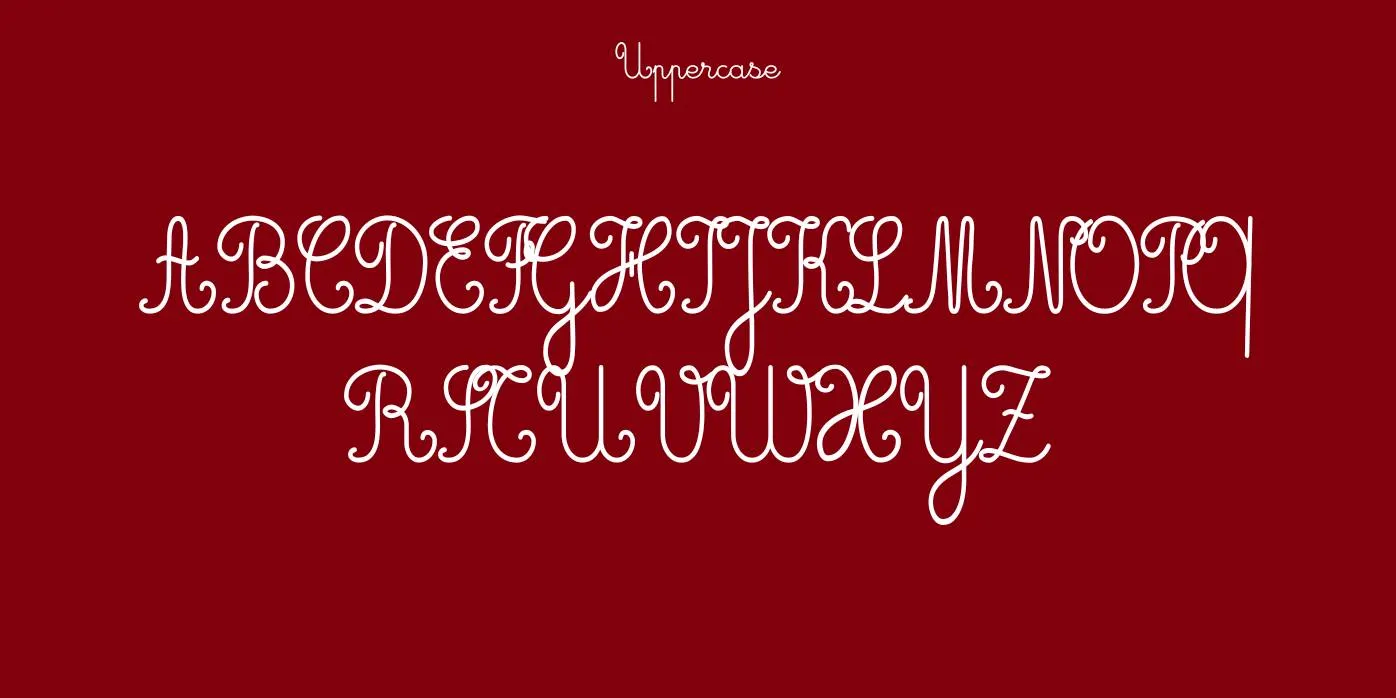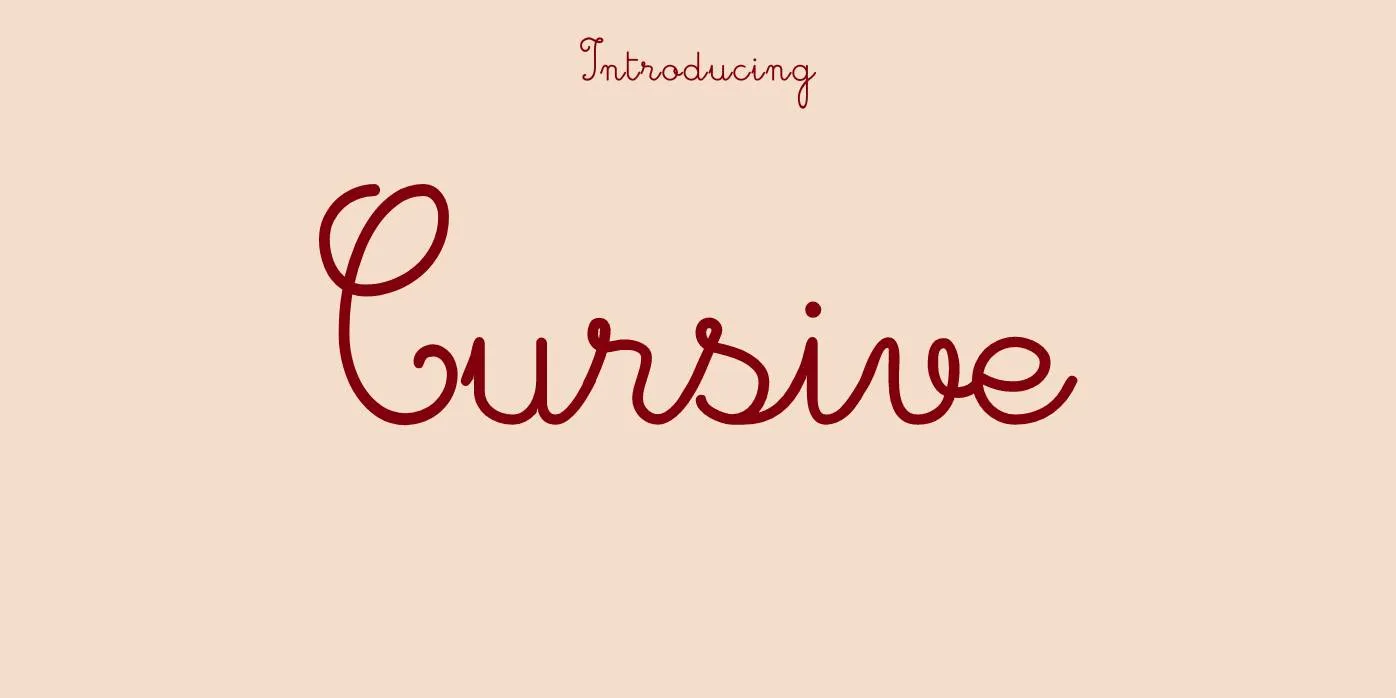
Cursive Font
We discuss detailed information about Cursive font. This font is designed by Dirtyline Studios. You can make different designs by using this font. This font is designed to make writing style faster.
It belongs to the script texture family. All characters are attached to the ends of each other which gives a very elegant look. It has different features it has 127 characters, 120 glyphs, and 2048 units per Em. The weight of the font is light and its width is medium (normal).
It has four different weights which makes it good for different projects such as regular, bold, light, and bold Italic. The online generator tool also supports this font in which your simple text changes into a stylish look online and you can copy and paste your text easily. You can download this font on different devices such as PC, MAC, and Android. You can also use this font for pairing with other fonts like my bestie font to give a more elegant look to your projects Usage It can be used to design different designs by using this font.
It has characters, numbers, symbols, capital letters, small letters, punctuations, and special characters. You can make attractive and decorative headlines by using this font. It can also be used to design stylish handwritten quotes. To send cute best wishes with stylish writing you can use this font as well.
It is good for both print and digital media. To make theme decorations banners, posters, flyers, and brochures you can use this font. For making social media posts, graphic and website designs you can use it as well. To make or edit designs you can use Adobe Photoshop, CSS, and Canva also.
How many weights does Cursive font have? This amazing font has four different weights which include regular, bold, light, and bold Italic. You can make so many different projects by using this font. What is the generator tool of Cursive Font?
The online generator tool supports this font which you can convert your simple designs into stylish looks without even downloading the font. Where can we use the Cursive Font? So many different projects can be made by using this font. You can make handwritten notes, best wishes quotes, greeting cards, invitation cards, and much more.